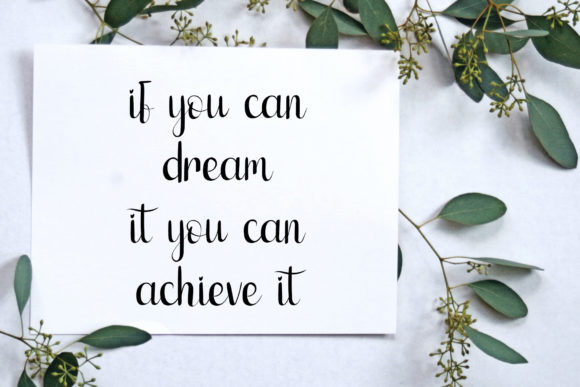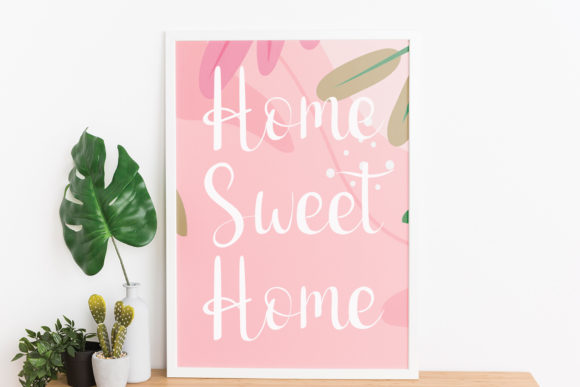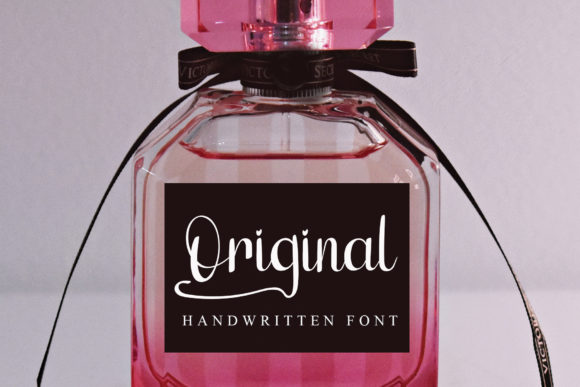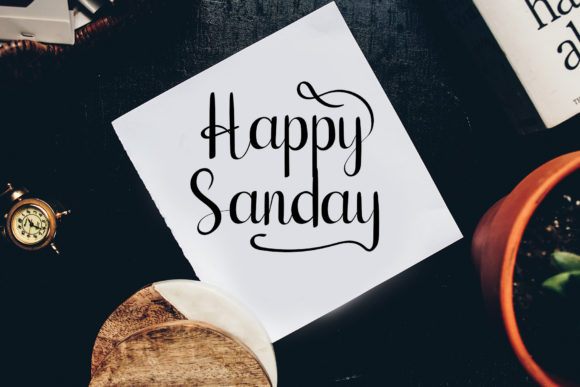
Beauty Butterfly Font
About Beauty Butterfly Font
Introducing Beauty Butterfly, a unique and elegant script font that will bring a touch of sophistication and charm to your designs. With its sleek characters and neat cursive style, Beauty Butterfly is perfect for a wide range of creative projects.
Whether you’re designing wedding invitations, birthday cards, name tags, watermarks, or any other project that requires an exquisite touch, Beauty Butterfly will add a sense of elegance and grace.
The flowing and graceful letterforms of Beauty Butterfly create a sense of movement and add a touch of beauty to your typography. Each character is meticulously designed to be sleek and refined, resulting in a font that exudes sophistication.
Beauty Butterfly is versatile and adaptable, allowing it to seamlessly blend into various design styles and concepts. Whether you’re aiming for a romantic and whimsical look, a modern and minimalistic design, or a classic and timeless aesthetic, Beauty Butterfly will complement your vision and enhance your typography.
Furthermore, Beauty Butterfly offers a range of alternate characters, ligatures, and swashes, allowing you to customize and personalize your designs. These additional glyphs can be accessed through OpenType features, giving you the freedom to create unique and stunning compositions.
With its clean and elegant style, Beauty Butterfly is legible and easy to read, making it suitable for a variety of design mediums. Whether you’re working on print materials such as invitations and cards, or digital projects like websites and social media graphics, Beauty Butterfly will ensure your typography stands out with its refined and captivating appearance.
Embrace the beauty of Beauty Butterfly and let it inspire your designs. Whether you’re adding a touch of elegance to wedding stationery, creating eye-catching birthday cards, or adding a professional watermark to your photographs, Beauty Butterfly will elevate your projects and leave a lasting impression.
So, let Beauty Butterfly be your go-to font for elegant and sophisticated designs. Its sleek characters and cursive style will bring a sense of refinement to your typography, making every project truly remarkable.